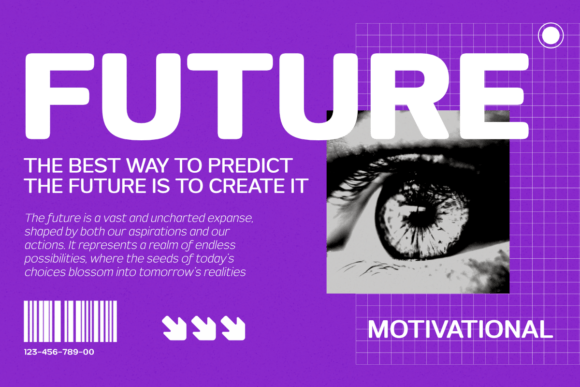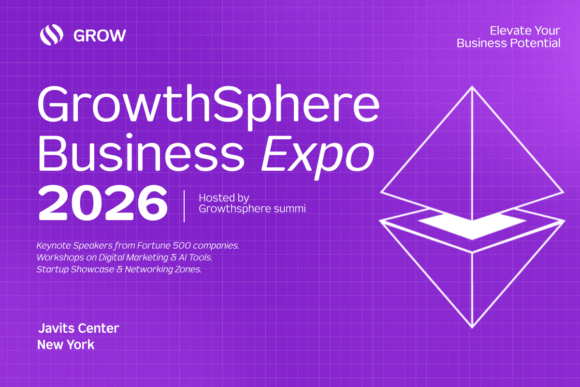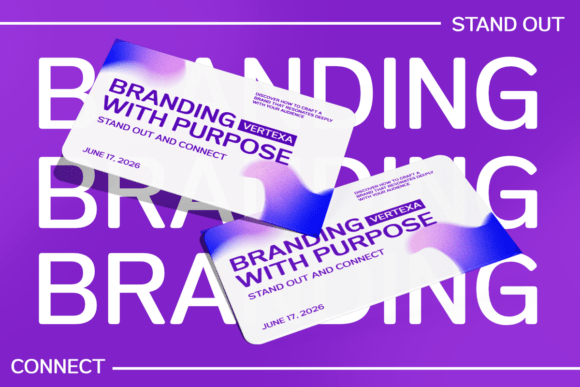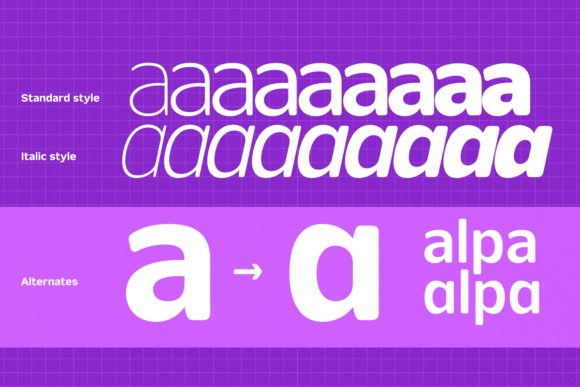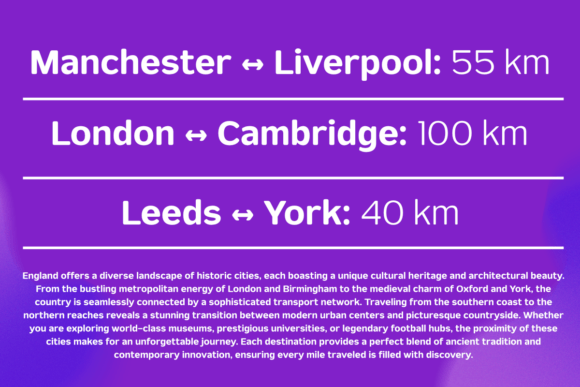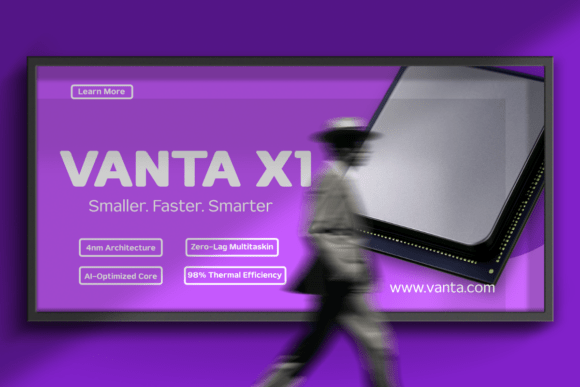
Introducing Fx Telaga Font: The Perfect Blend of Professional Clarity and Organic Warmth
In the world of typography, finding the perfect font that balances professionalism with a touch of warmth can be a daunting task. However, designers and crafters can now rejoice with the introduction of Fx Telaga Font, a modern sans-serif family that beautifully captures the essence of both worlds. With its extensive collection of 18 styles, ranging from the ethereal Thin to the commanding Black with matching Italics, Fx Telaga is set to revolutionize the way we approach typography.
The Unique Characteristics of Fx Telaga Font
So, what sets Fx Telaga apart from other fonts? The answer lies in its subtly rounded corners that evoke a soft, dynamic energy. This distinctive feature gives Fx Telaga a unique personality that is both modern and approachable. The rounded corners add a touch of warmth to the font, making it perfect for designs that require a human touch. Whether you’re working on a sleek logo description, a vibrant poster, or contemporary product packaging, Fx Telaga is the ideal choice.
A Versatile Font Family for Diverse Design Needs
Fx Telaga Font is not just a font, but a versatile family of 18 styles that cater to diverse design needs. The font family includes:
- Thin: perfect for subtle, elegant designs
- Light: ideal for designs that require a touch of sophistication
- Regular: a balanced font for everyday use
- Medium: great for designs that need a bit more emphasis
- Bold: perfect for making a statement
- Black: for designs that require a commanding presence
- Matching Italics: add a touch of elegance to your designs
With such a wide range of styles, designers can experiment with different looks and feels to find the perfect fit for their project.
Fx Telaga Font is designed to be versatile and can be used in a variety of design applications, including:
- Sleek logo descriptions: Fx Telaga’s modern sans-serif design makes it perfect for creating sleek and sophisticated logo descriptions that capture the essence of your brand.
- Vibrant posters: The font’s dynamic energy and range of styles make it ideal for creating eye-catching posters that grab attention.
- Contemporary product packaging: Fx Telaga’s unique blend of professionalism and warmth makes it perfect for product packaging that requires a modern and approachable look.
Why Choose Fx Telaga Font?
With so many fonts available, why choose Fx Telaga? Here are just a few reasons:
- Unique design: Fx Telaga’s subtly rounded corners and modern sans-serif design make it stand out from other fonts.
- Versatility: With 18 styles to choose from, Fx Telaga can be used in a wide range of design applications.
- Professional clarity: Fx Telaga’s clean and crisp design ensures that your message is communicated clearly and effectively.
- Organic warmth: The font’s rounded corners add a touch of warmth, making it perfect for designs that require a human touch.
In conclusion, Fx Telaga Font is a game-changer for designers and crafters looking for a modern sans-serif font that balances professional clarity with organic warmth. With its unique design, versatility, and range of styles, Fx Telaga is perfect for a wide range of design applications. Whether you’re working on a sleek logo description, a vibrant poster, or contemporary product packaging, Fx Telaga is the ideal choice. So why wait? Give Fx Telaga a try today and experience the difference for yourself.